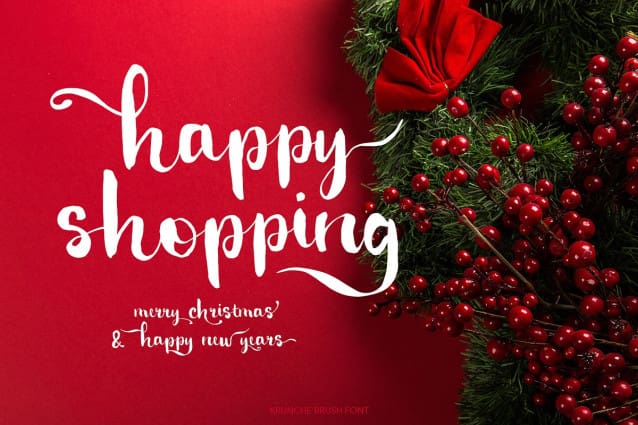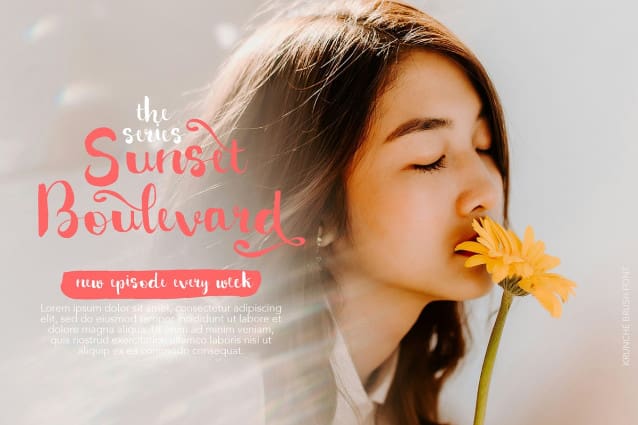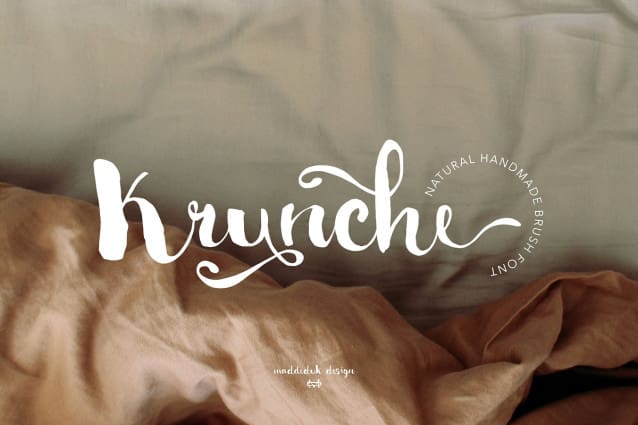
Krunche Script Font
Krunche Script Font is a realistic brush script! Come with much alternative and this font perfect for poster design, book covers, merchandise, fashion campaigns, newsletters, branding, advertising, magazines, greeting cards, album covers, and quote designs and more.